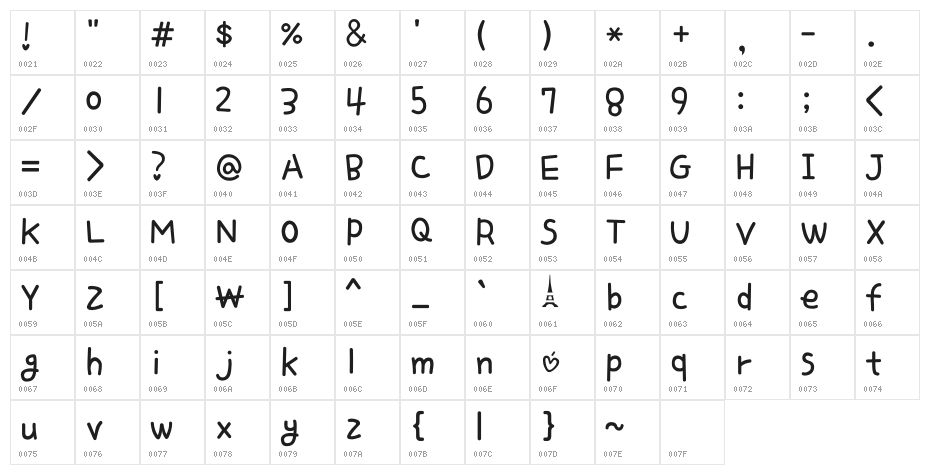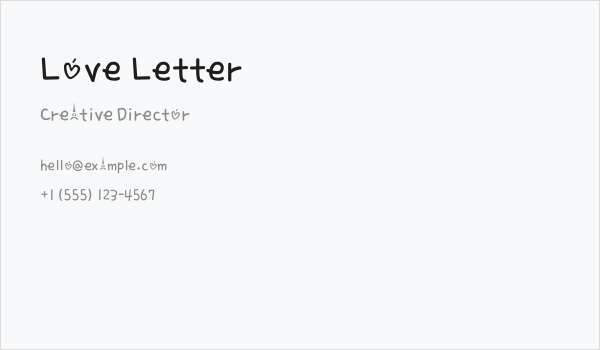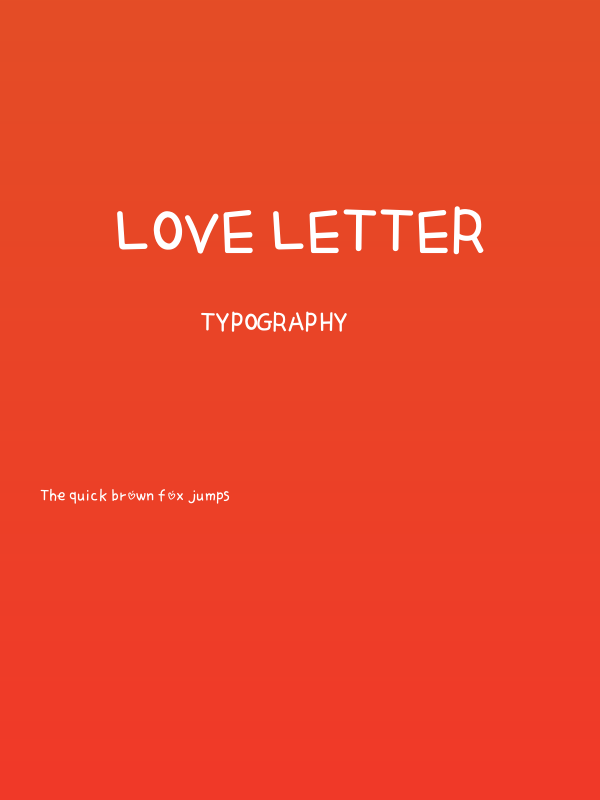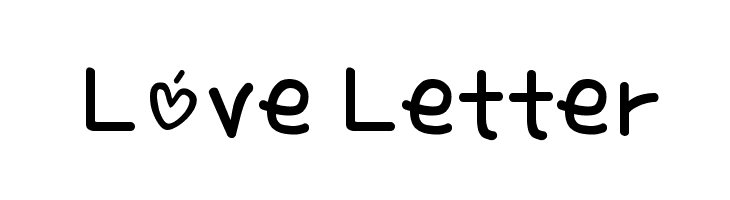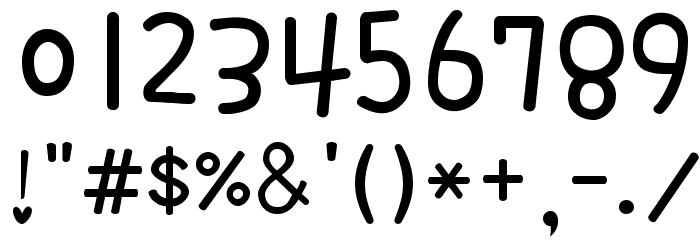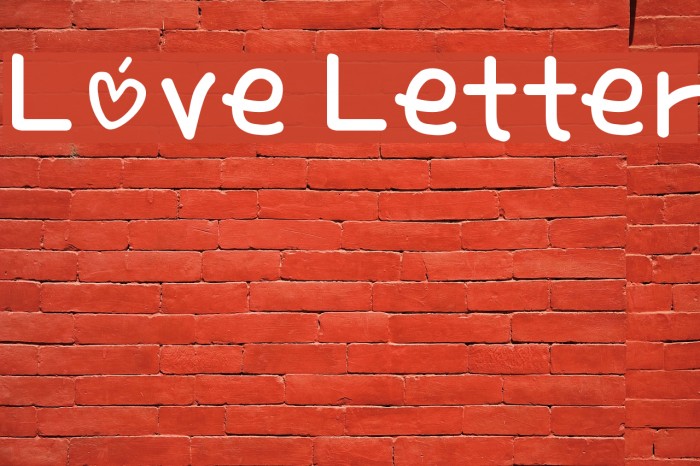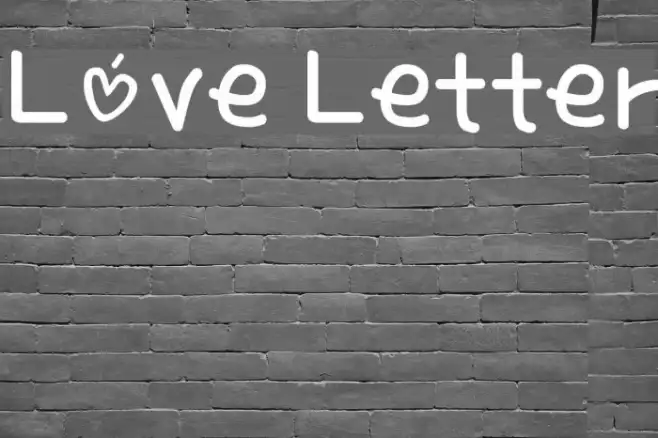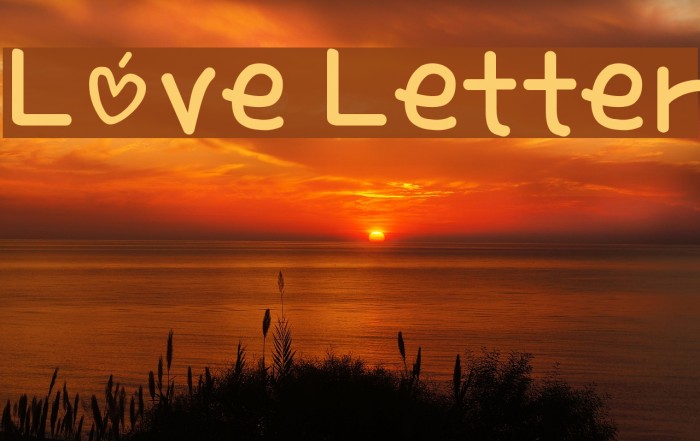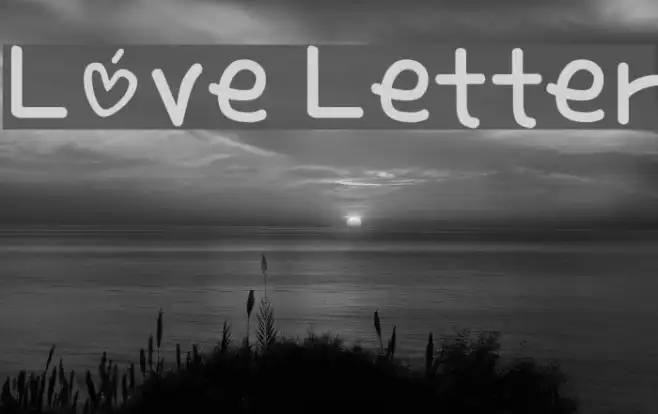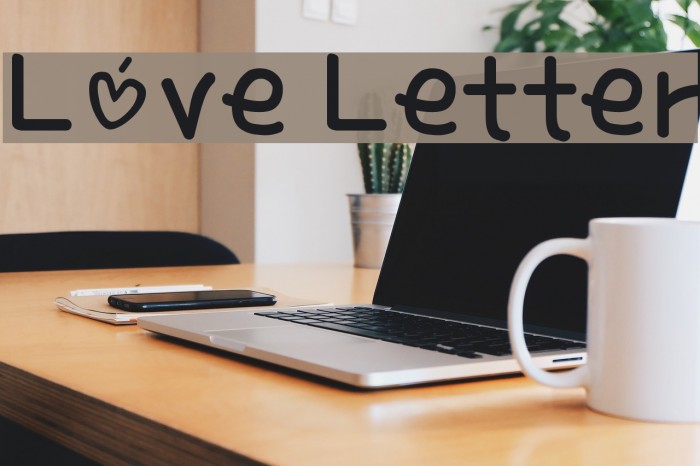
Love Letter Font
Love Letter Description
This playful and whimsical font features a handwritten style with a charming, casual appearance. The letters have a rounded, friendly look, with a consistent stroke width that gives it a uniform feel. The uppercase and lowercase letters are distinct yet harmonious, with quirky elements such as a heart-shaped 'o' and a unique Eiffel Tower symbol. The numerals are clear and easy to read, maintaining the same playful aesthetic. Special characters are included, adding versatility to the font. Overall, it exudes a sense of fun and creativity, making it ideal for projects that require a personal touch.
| Use Case | Headlines, Logos, Greeting Cards |
| Proposed Projects | Ideal for greeting cards, children's books, playful branding, and personal projects. |